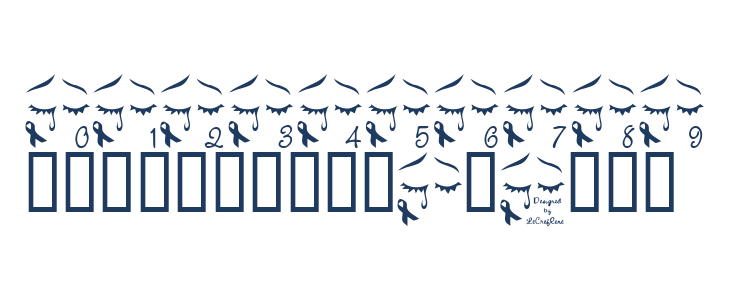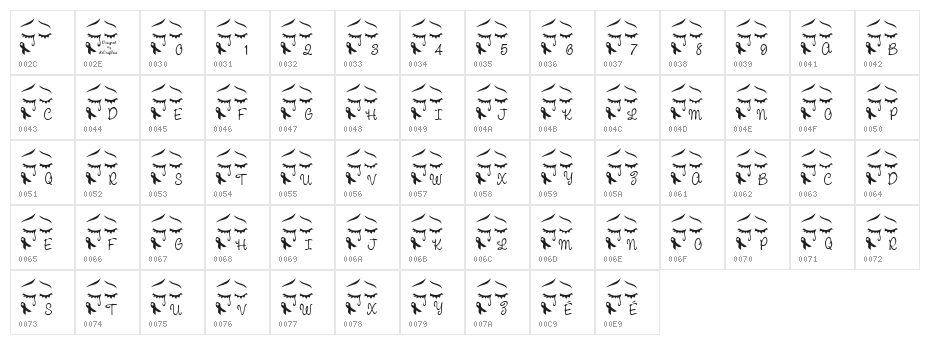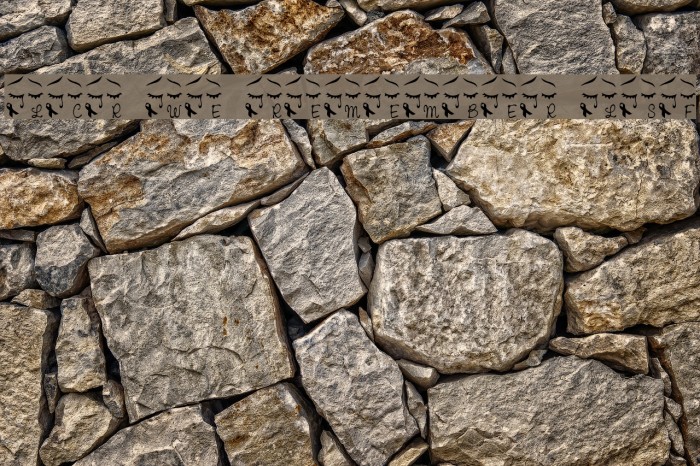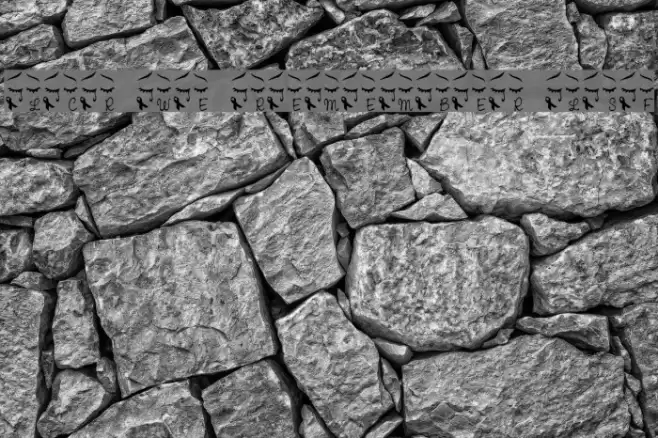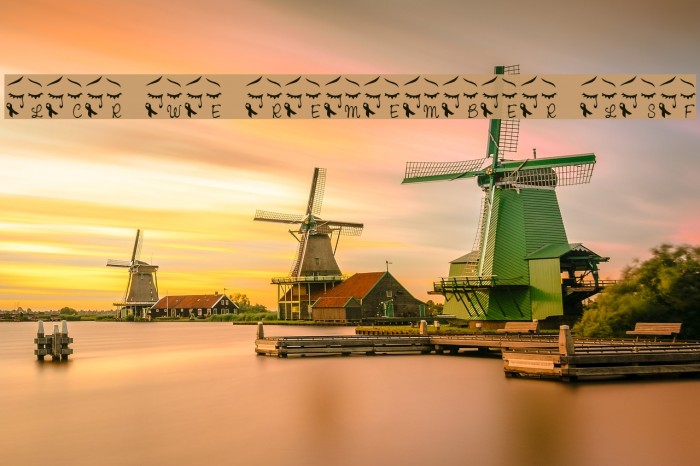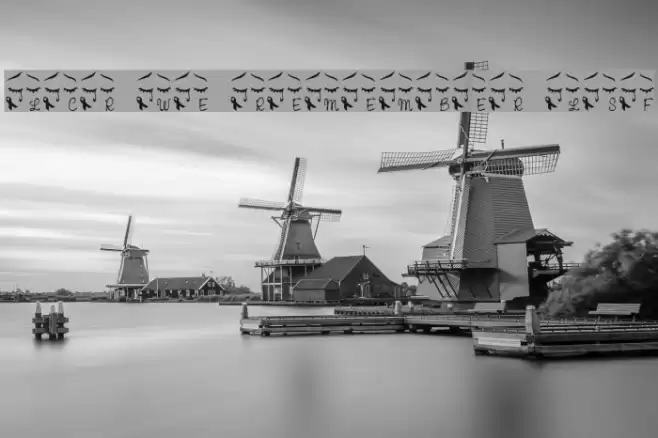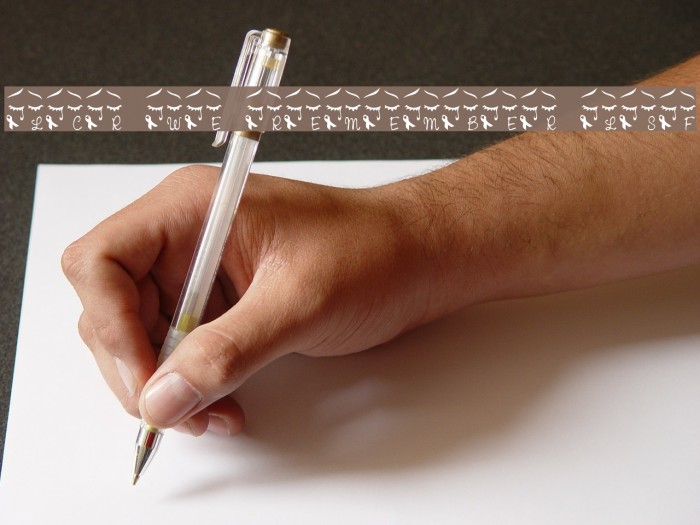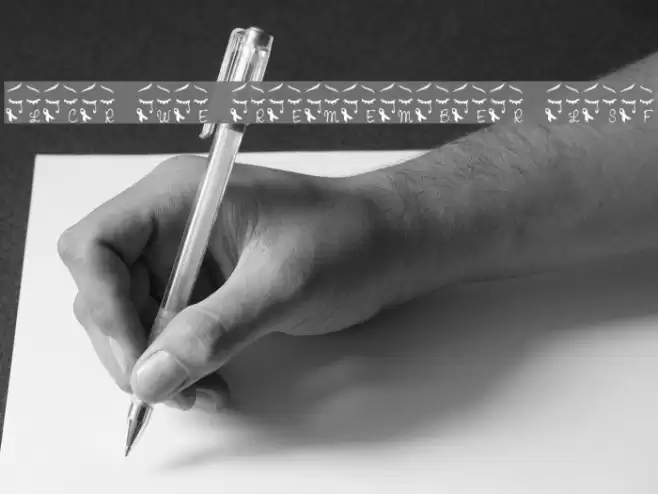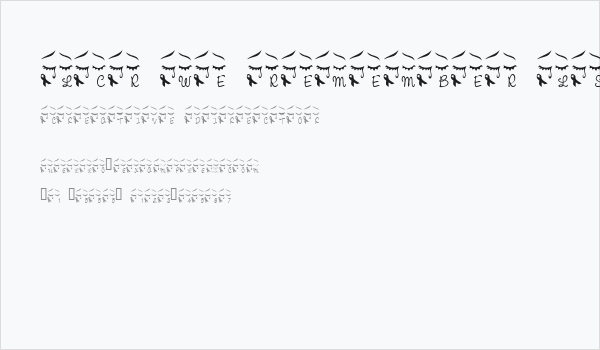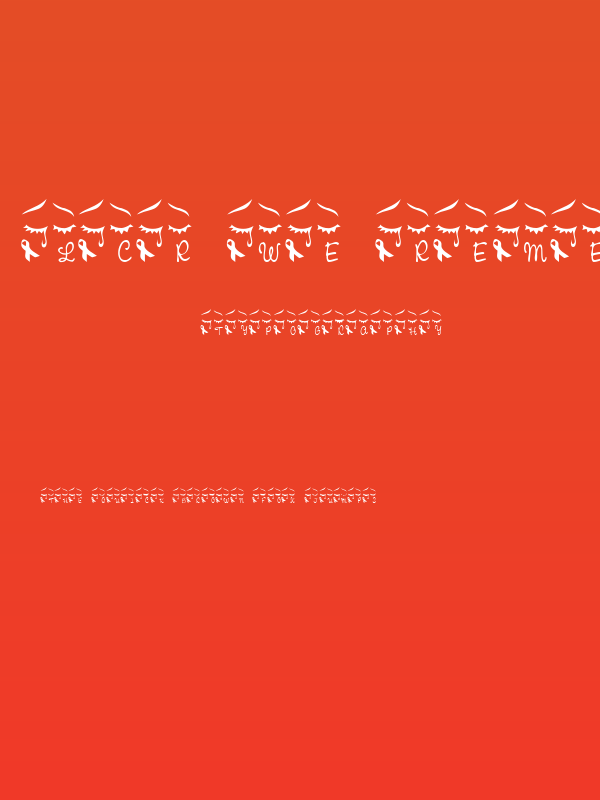
LCR We Remember LSF Font
LCR We Remember LSF Description
This font features a unique and decorative style, incorporating elements of awareness ribbons into each character. The uppercase and lowercase letters, as well as numbers, are adorned with these symbolic ribbons, creating a visually striking and meaningful design. The font's artistic flair is evident in the way each letter is crafted, with smooth curves and a consistent flow that maintains readability while emphasizing its thematic elements. The inclusion of awareness ribbons suggests a purpose beyond aesthetics, potentially serving as a reminder or tribute. This font is ideal for projects that aim to convey a message of remembrance, support, or awareness, making it suitable for campaigns, memorials, or themed events.
| Use Case | Headlines, Logos, Themed Events |
| Proposed Projects | Ideal for awareness campaigns, memorials, themed events, and supportive messaging. |